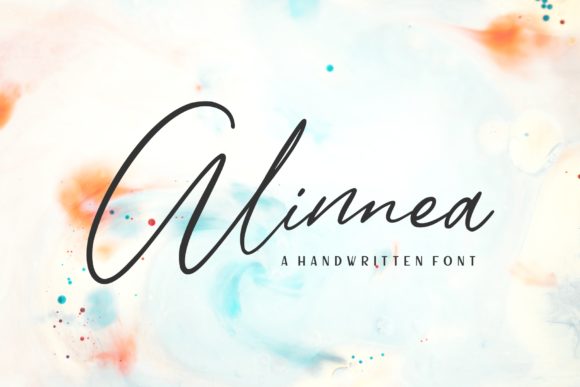
Step into the world of Alinnea, a captivating script font designed to enchant your Instagram posts with an air of elegance and distinction. Crafted by the skilled artisans at Garisman Studio, Alinnea is not just a font; it's an artistic expression that dances across the digital canvas, leaving a trail of beauty in its wake.
With its meticulously crafted curves and graceful strokes, Alinnea transforms ordinary words into captivating works of art. Its sophisticated feel adds a touch of refinement to any project, elevating your Instagram posts to new heights of visual appeal. Whether you're a creative professional, a social media influencer, or simply someone who appreciates the finer things in life, Alinnea is the perfect font to elevate your digital presence.
Experience the allure of Alinnea's enchanting characters, each one a masterpiece of digital calligraphy. Its seamless flow and effortless readability make it a joy to use, while its timeless aesthetic ensures that your posts will remain visually stunning for years to come.
Unleash your creativity and let Alinnea take your Instagram posts to new heights. Its versatility knows no bounds, making it the perfect choice for a wide range of projects. From captivating quotes and inspiring messages to eye-catching product promotions and stunning announcements, Alinnea adds a touch of magic to every word you type.
Don't settle for ordinary fonts that blend into the digital noise. Embrace the beauty of Alinnea and watch your Instagram posts shine brighter than ever before. Its sophisticated charm will captivate your audience, leaving them mesmerized by the sheer elegance of your words.
Join the growing community of creatives and influencers who have discovered the transformative power of Alinnea. Let your Instagram posts speak volumes, not just with words, but with the enchanting beauty of a font that truly stands out. Embrace the allure of Alinnea today and unlock a world of endless creative possibilities.